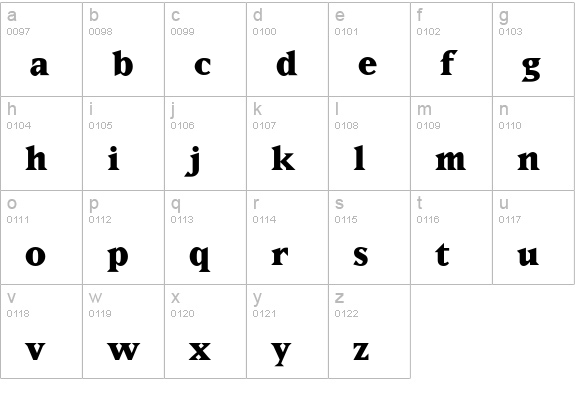
Matrix-ExtraBold is an extra-heavy, attention-grabbing variant in the Matrix typeface family \xE2\x80\x94 well suited to high-impact headlines, posters, and bold branding.
Matrix-ExtraBold is a modern and stylish typeface that exudes strength and sophistication. With its bold and impactful design, this font is perfect for making a statement in your designs. Whether you are creating posters, headlines, or branding materials, Matrix-ExtraBold will help you stand out from the crowd. What makes Matrix-ExtraBold even more appealing is that it is available for free download at FontsMarket.com. This means you can easily access this powerful font and use it in your projects without any cost. Take advantage of this opportunity to enhance your designs with the striking and distinctive look of Matrix-ExtraBold.